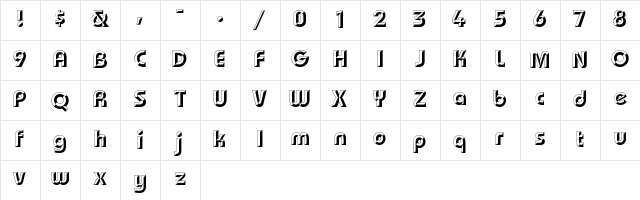
A&S Graphina Chisel Bold
| Foundry | SIGNFONTS-Art&Sign studio |
| Designer | Steve Contreras |
Design Context for A&S Graphina Chisel Typeface
A&S Graphina Chisel takes a measured approach to typography — its balanced proportions and neutral character make it a reliable workhorse for both digital and print work. The heavy weight commands attention and anchors typographic hierarchies.